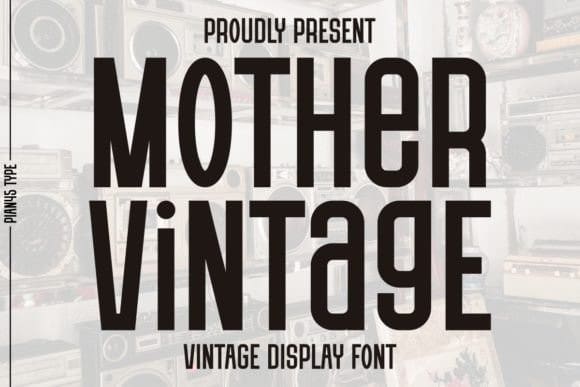
Mother Vintage Font
Mother Vintage Font is a classic, vintage display font that blends timeless elegance and nostalgia with playful charm. This font captures the essence of vintage aesthetics while infusing a modern twist. Perfect for posters, greeting cards, logos, t-shirts, mugs, tumblers, tote bags, books, quotes, stickers, or any design project that needs to bring a cheerful and nostalgic atmosphere.